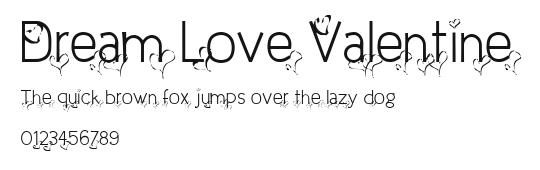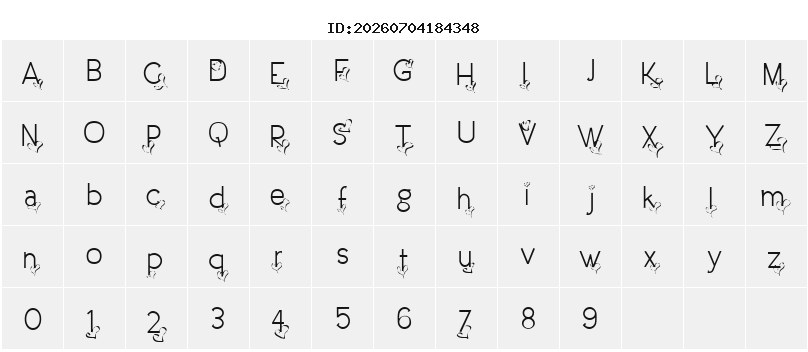
• Font Name: Dream Love Valentine
• Designer: Tipografia Leone
Dream Love Valentine.ttf is a modern, elegant sans-serif font designed for ultimate readability and visual harmony. Perfect for branding, headlines, web design, and print materials.